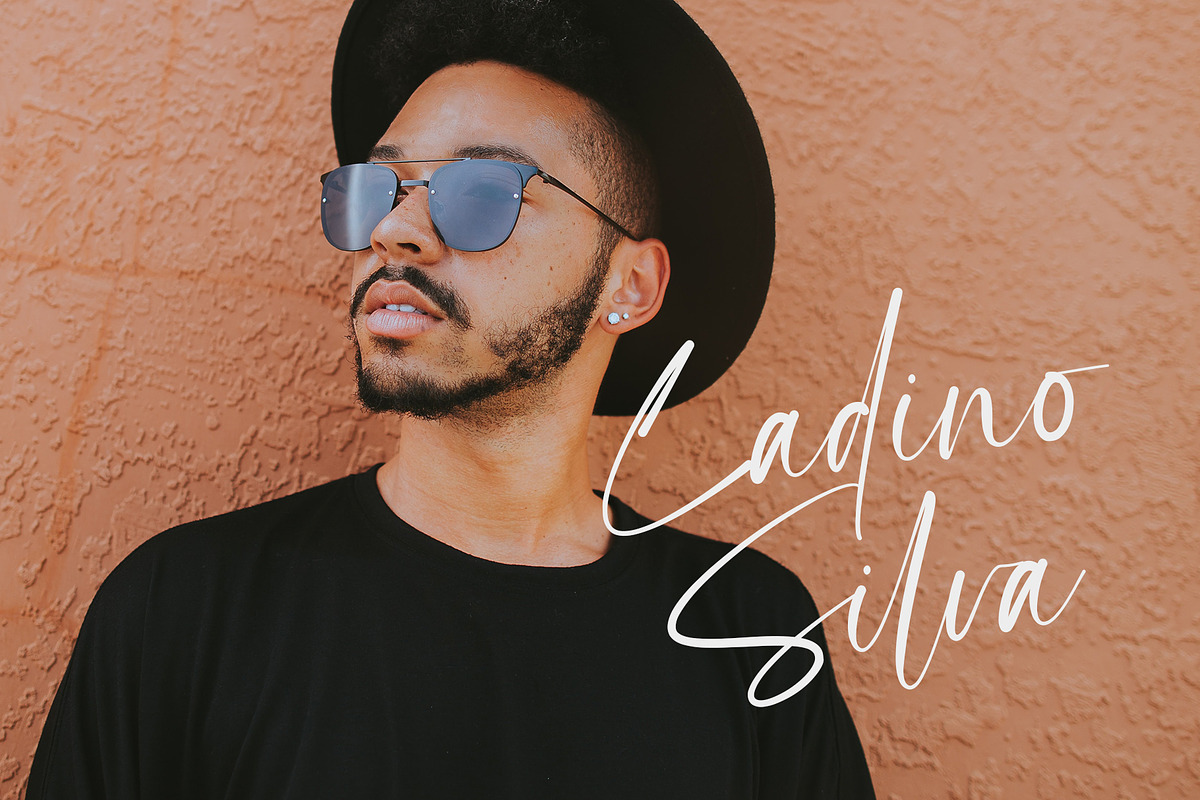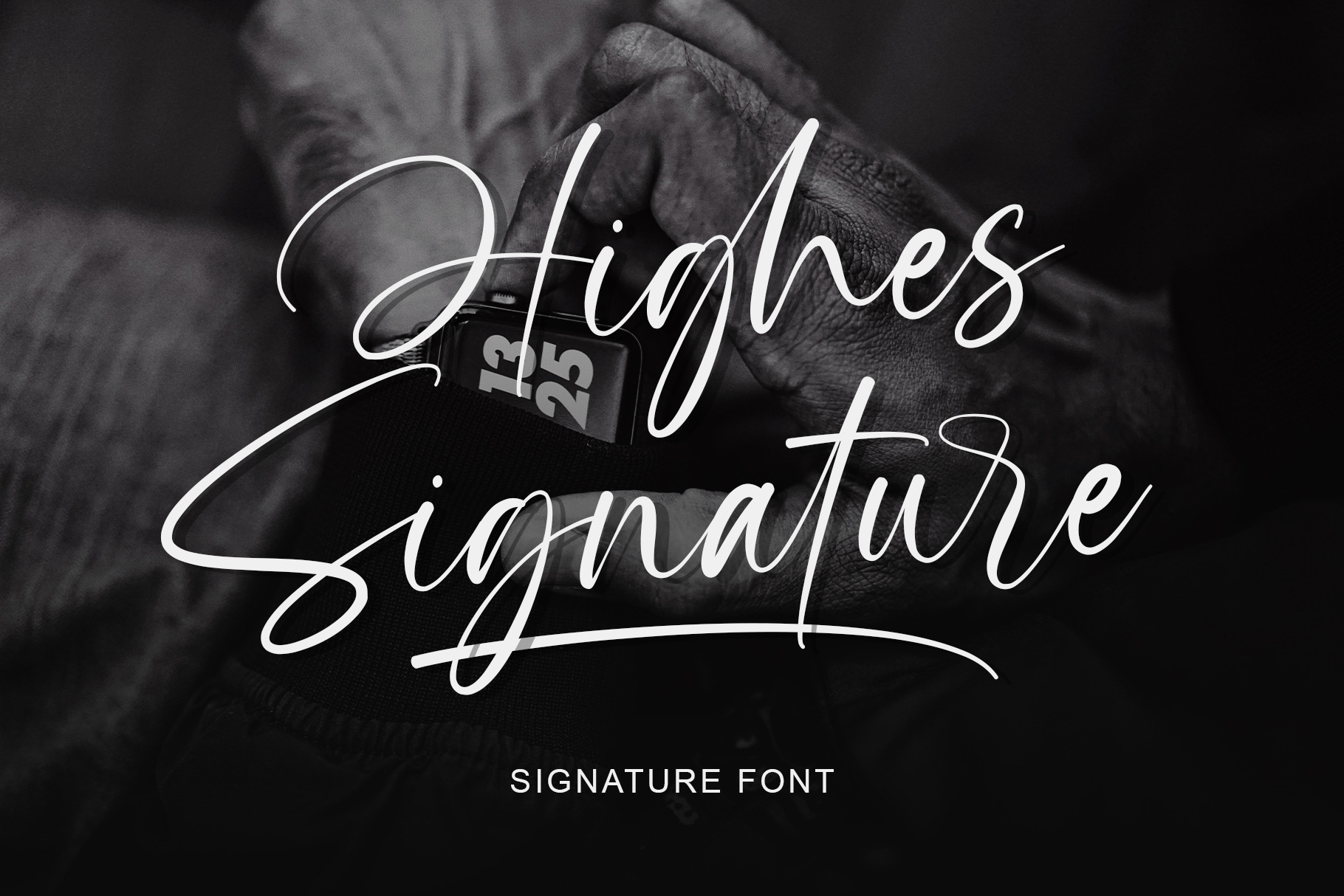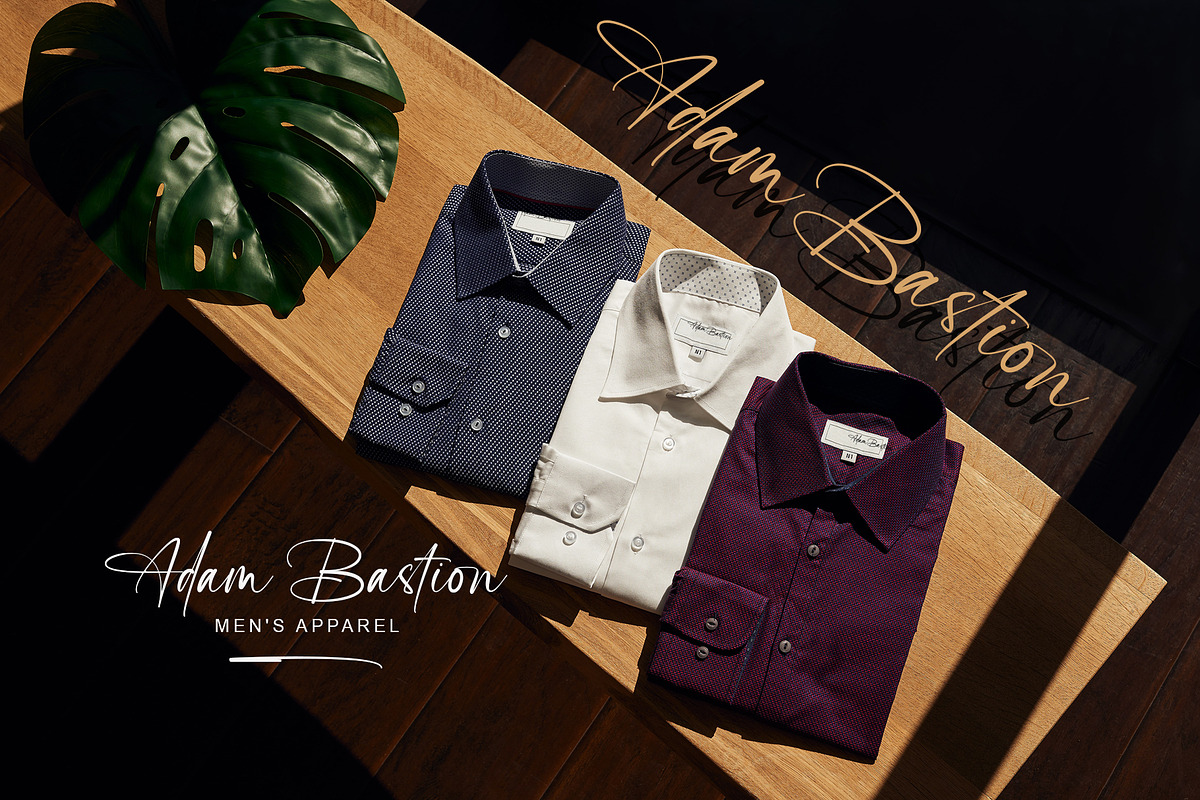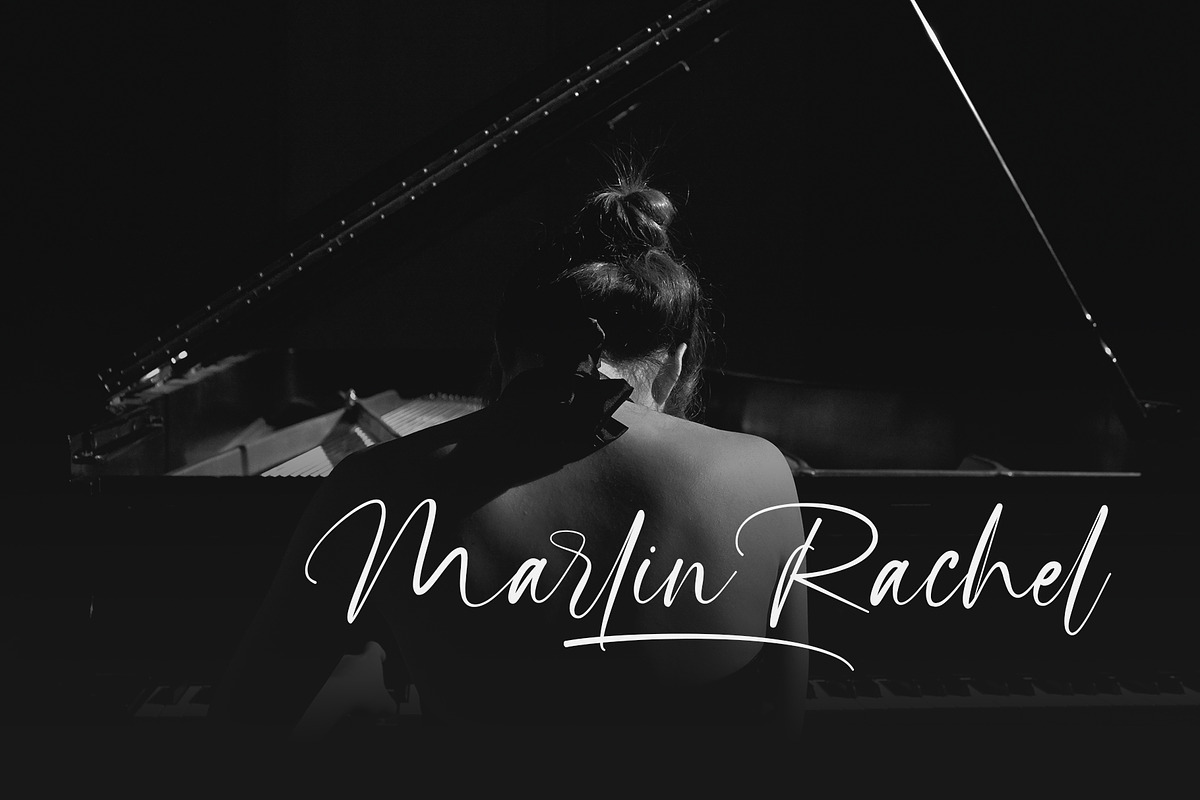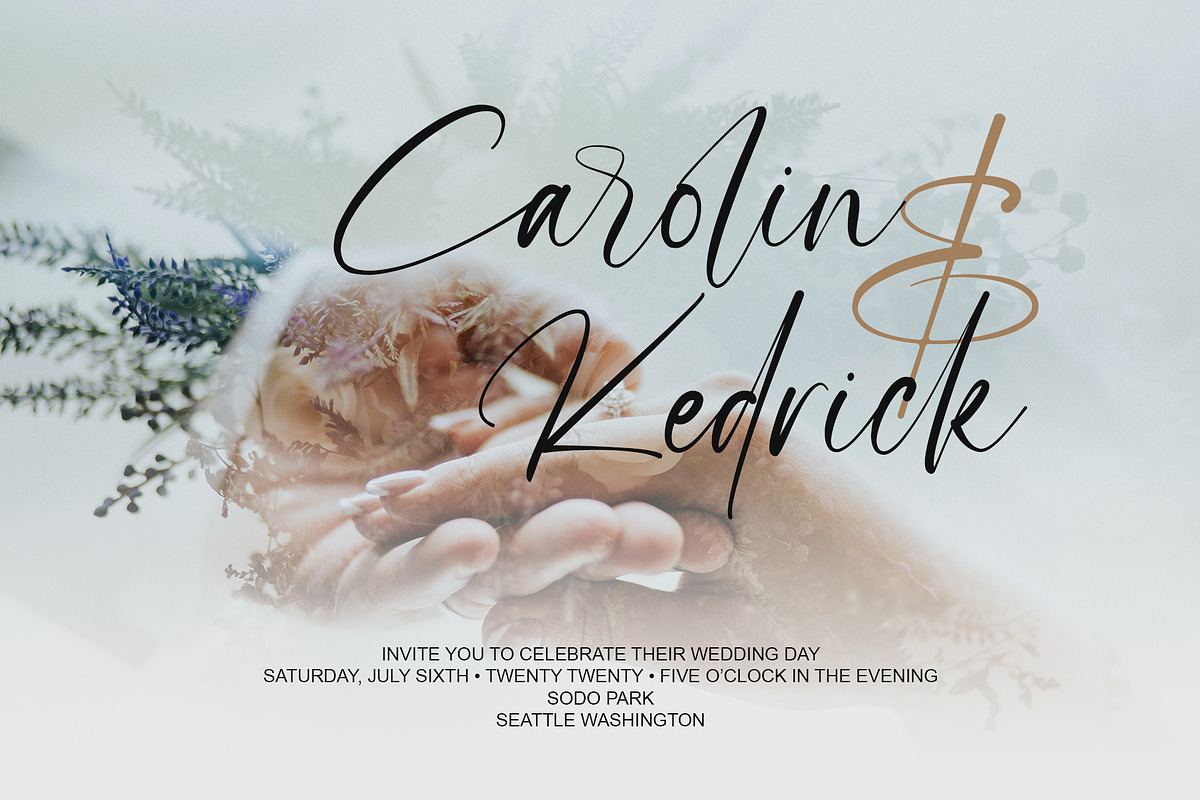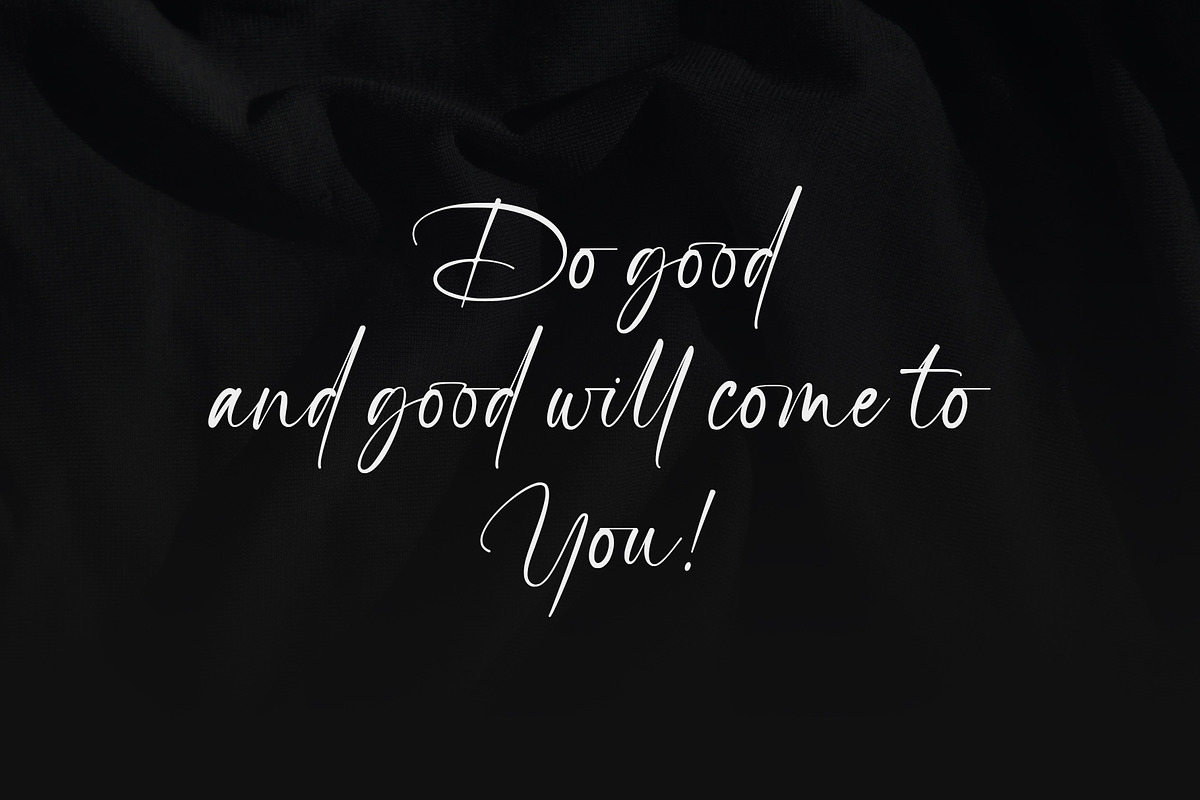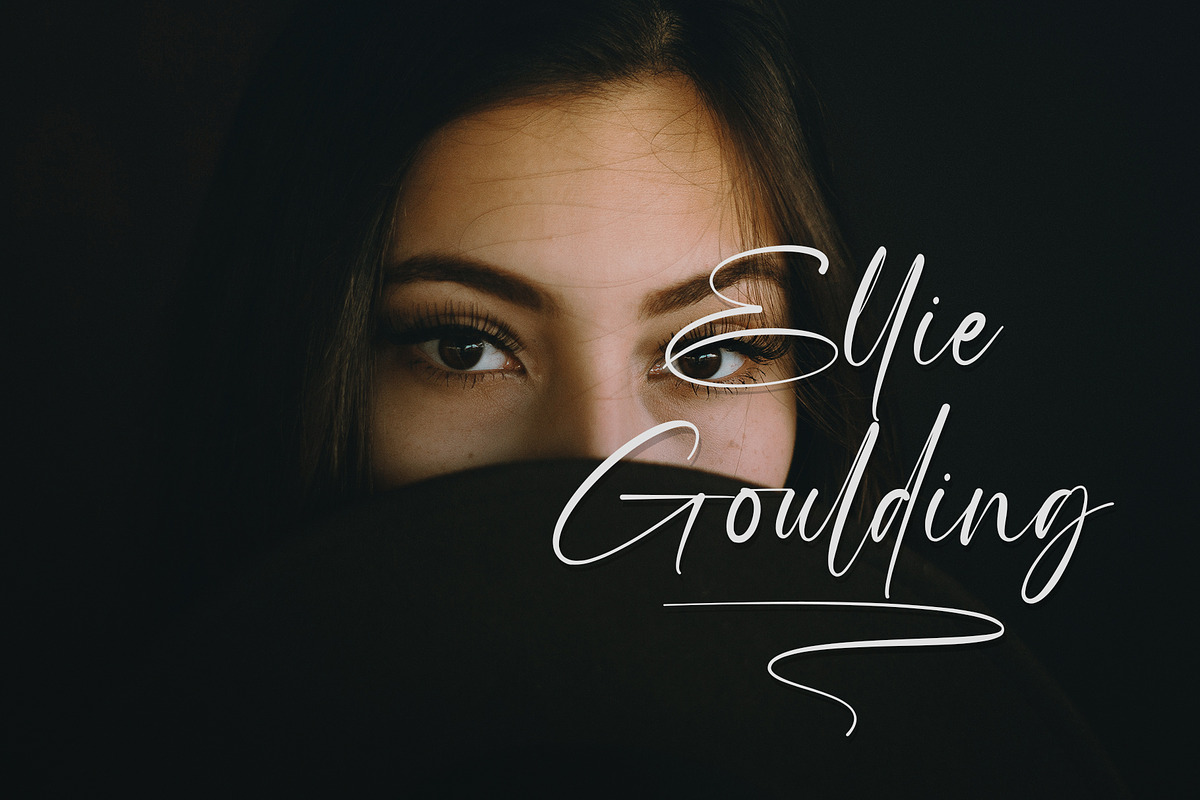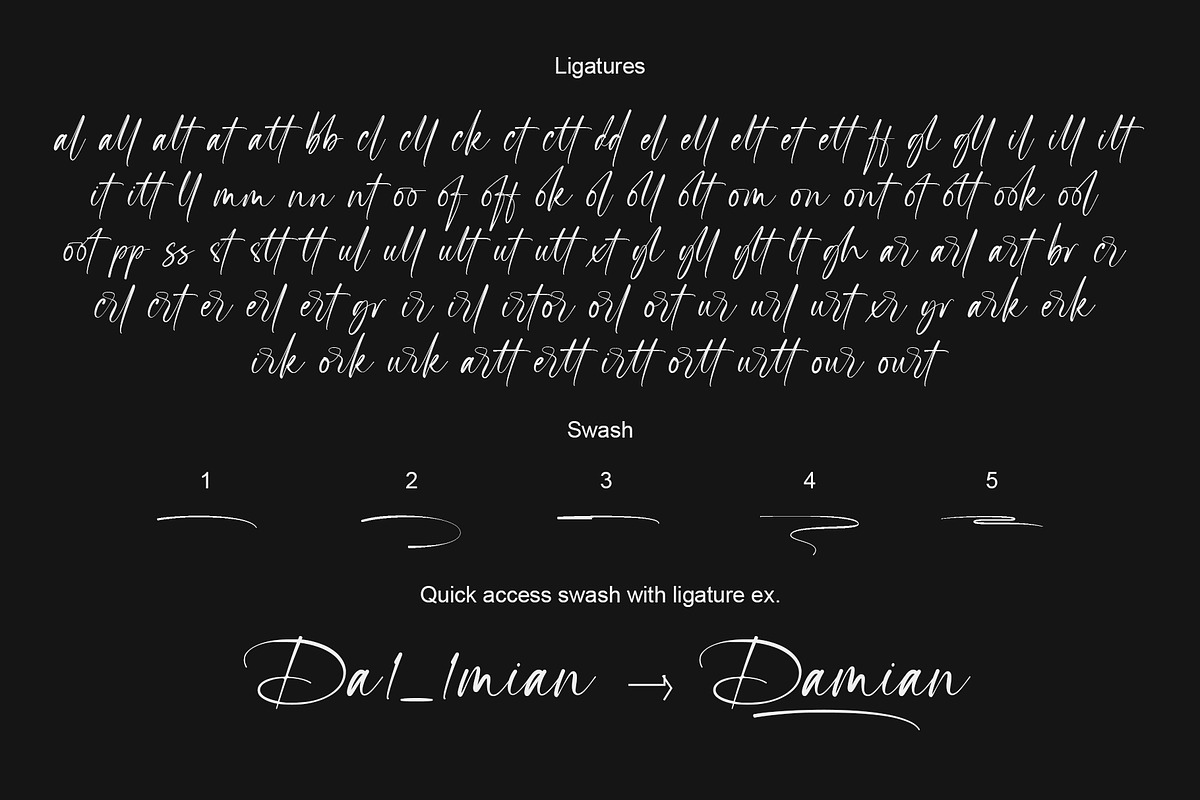
Highes Signature | Signature Font
Highes Signature is a perfect signature font, with a natural & stylish flow. Highes Signature Font is perfect for many different project such as logos & branding, invitation, stationery, wedding designs, social media posts, advertisements, product packaging, product designs, label, photography, watermark, special events or anything.
Quick access Swash
- Add number (1-5) + underscore + number (1-5). Ex: 1_1, 2_2, 3_3, 4_4, 5_5